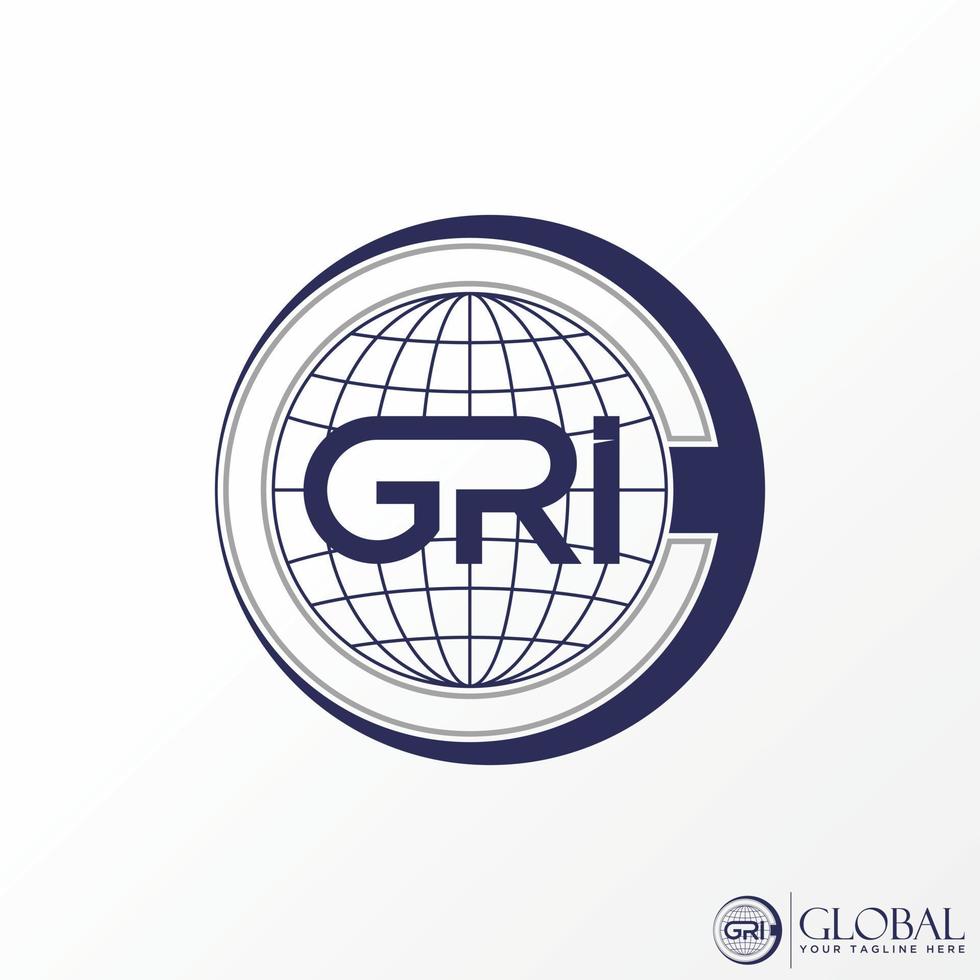
Simple and unique globe like letter C with word GRI font on connect shape image graphic icon logo design abstract concept vector stock. Can be used as symbol related to group or maps Pro Vector